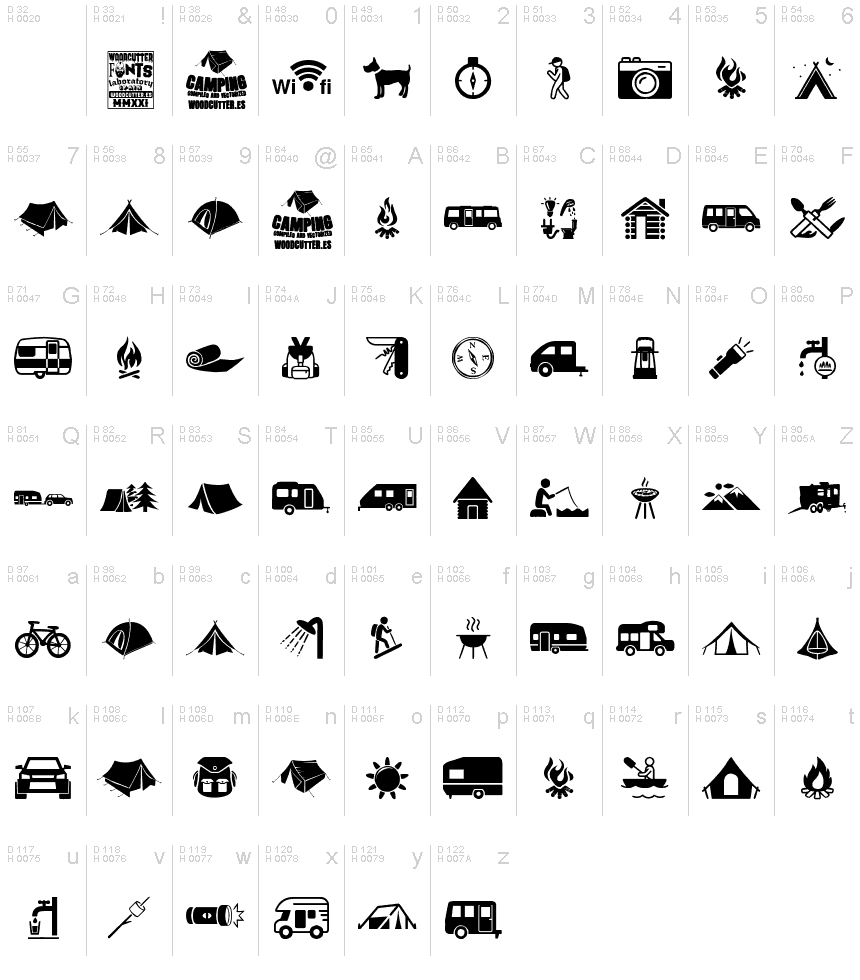
Camping
Experience the adventurous outdoors with Camping, a bold dingbat font designed by Woodcutter Manero. Perfect for outdoor-themed projects such as hiking, camping, or even fishing logos and apparel designs. Let your creativity run wild with Camping!